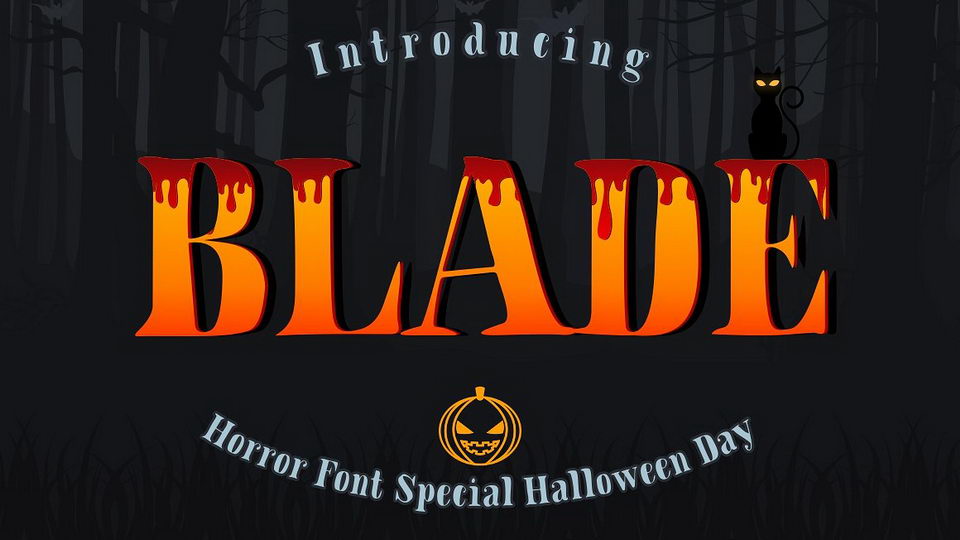
Blade Font
Blade is a natural serif style font like handwriting, but still has asserted. Also has a style of horror so it is suitable to meet your design needs in order to welcome Hallowen day!